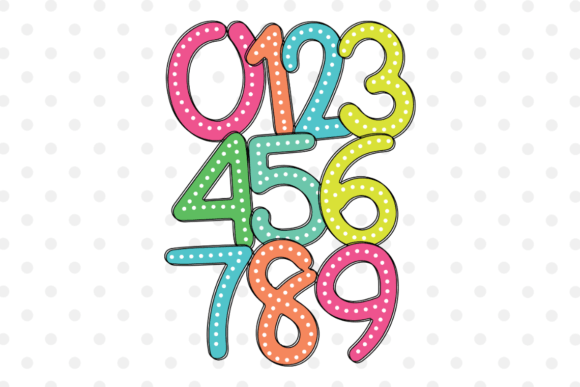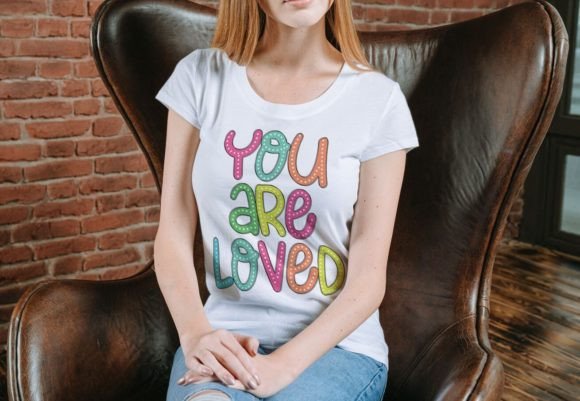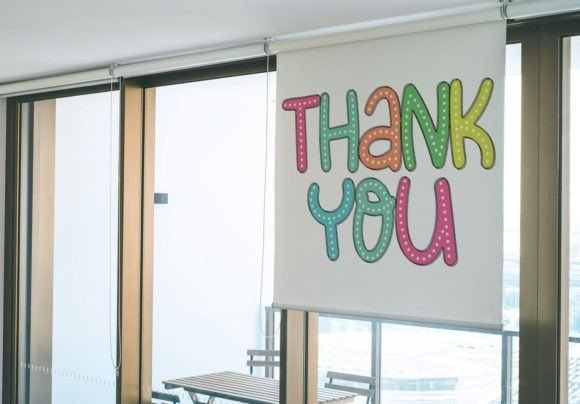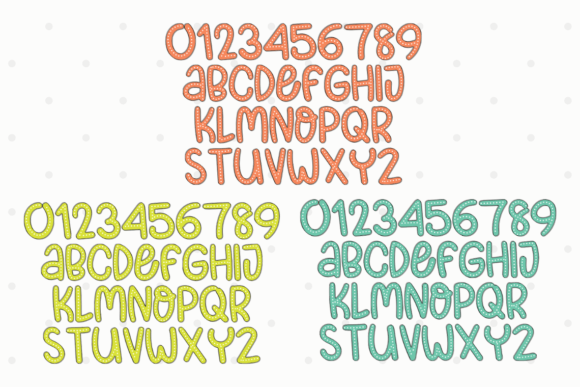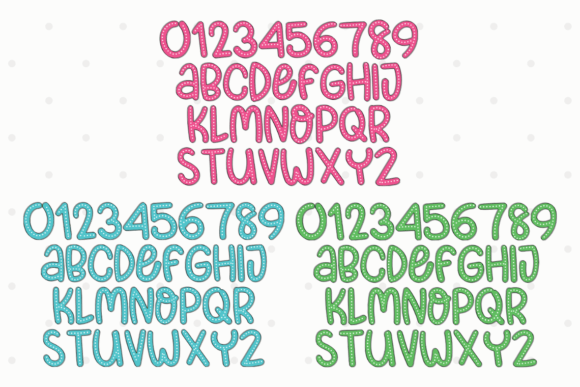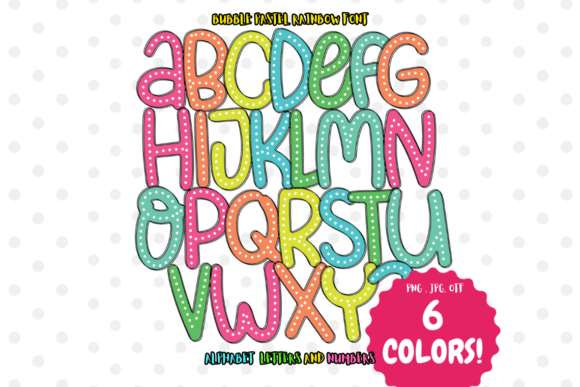
Discover the Whimsical Charm of Bubble Pastel Rainbow Font
Have you ever been in the middle of a design project, and suddenly, you’re stuck on finding the perfect font? I recall a recent experience where I was working on a colorful poster for a kids’ event, and my usual go-to fonts just weren’t cutting it. The design needed a playful, vibrant touch that would appeal to both kids and adults. That’s when I stumbled upon the delightful Bubble Pastel Rainbow Font! ✨
A Personal Review: What I Love and a Few Quirks
I’m excited to share my honest review of Bubble Pastel Rainbow Font, and I’ve broken it down into what I love and a few quirks to keep in mind.
• Playful handwritten style: The font’s casual, whimsical vibe is perfect for designs that need a friendly touch.
• Vibrant pastel hues: The beautiful color palette adds a pop of fun to any design.
• 💫 OpenType-SVG compatibility: This font works seamlessly with compatible software like PhotoShop and Illustrator.
A Few Quirks:
• 🤔 Learning curve for OpenType features: If you’re new to OpenType fonts, it might take some time to get familiar with the various glyphs and stylistic alternates.
The Designer Inspiration Behind Bubble Pastel Rainbow Font
Imagine a world where colors blend together in perfect harmony, and whimsy is just a font away. The designer behind Bubble Pastel Rainbow Font drew inspiration from childhood memories of playing with colorful bubbles on a sunny day. With a passion for creating playful, yet elegant designs, the designer aimed to craft a font that would bring joy and creativity to every project.
Whether you’re a designer, crafter, or creative hobbyist, Bubble Pastel Rainbow Font is sure to add a touch of whimsy and fun to your projects. With its playful handwritten style and vibrant pastel hues, this delightful font is perfect for designs that need a pop of color and personality.